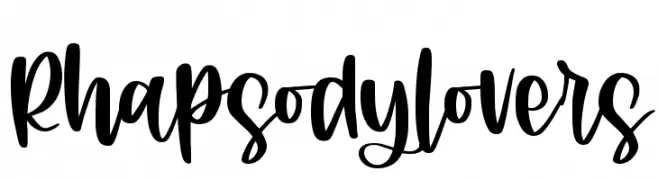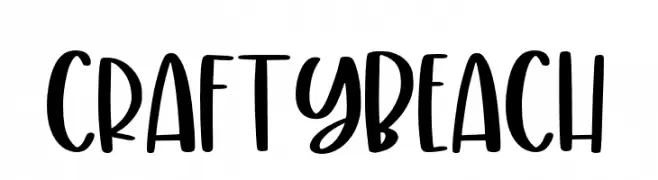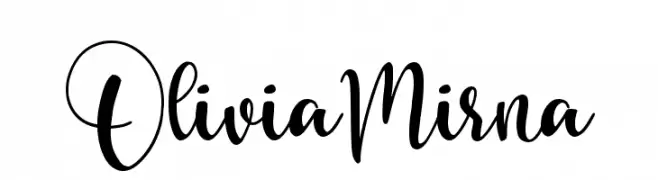
A bold, handwritten brush-style font with a playful and artistic flair.
A bold, expressive script font with fluid, interconnected strokes.
An elegant, flowing script font with modern, sophisticated curves.
A playful, hand-drawn outline font with a whimsical and casual style.
A playful, hand-drawn font with rounded, casual characters.
A bold, playful handwritten font with rounded, whimsical letterforms.
A playful, modern font with a hand-drawn, whimsical style.
An elegant and flowing script font with graceful loops and cursive strokes.
A lively and elegant script font with flowing, cursive letterforms.
An ornate and decorative script font with elaborate swirls and flourishes.